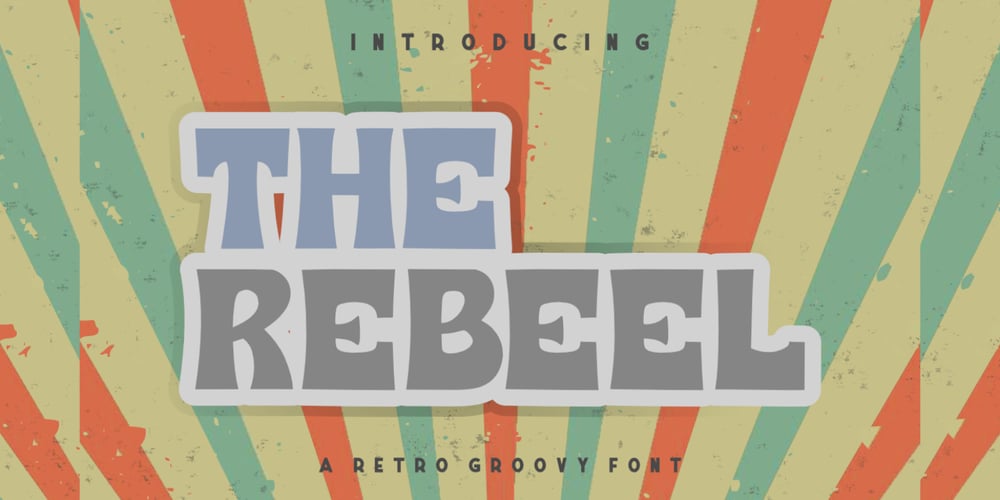
The Rebeel Font Family was designed by Bayu Aji Fais Mursid and published by Bayuktx. The Rebeel contains 1 styles and family package options. Hello,Thank you for visiting my products, we will give you the best choice.THE REBEEL Retro Groovy Font, This font is made with a high premium quality level which you can use as flyers, quotes, posters, banners, packaging, merchandise, logotypes and much more.FEATURES :* Uppercase* Number* Punctuation* Multilingual* PUA Encode* OpentypeFILES INCLUDED :* THE REBEEL. 1* THE REBEEL. 2Thank you